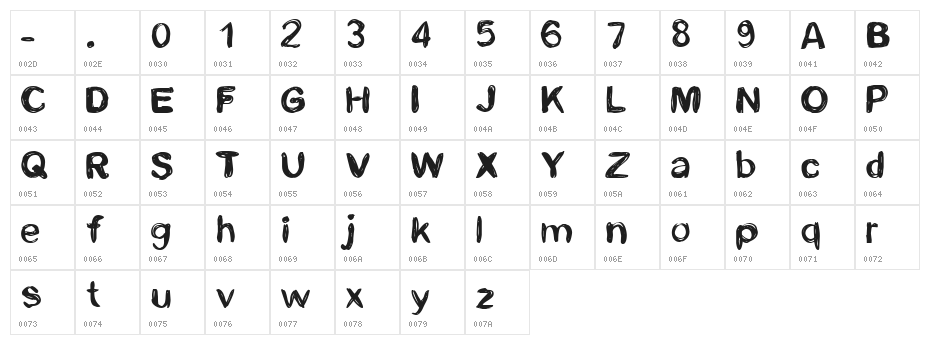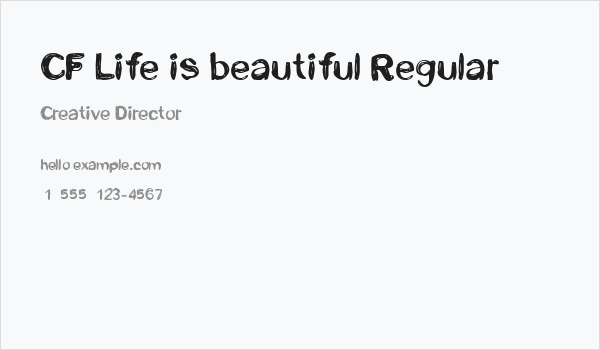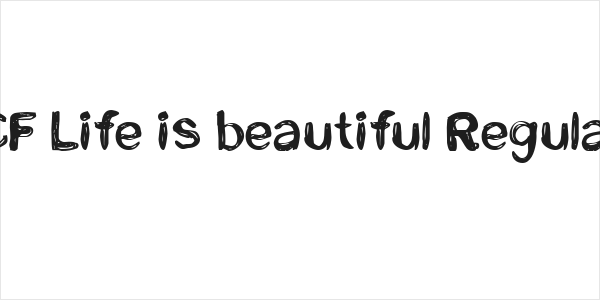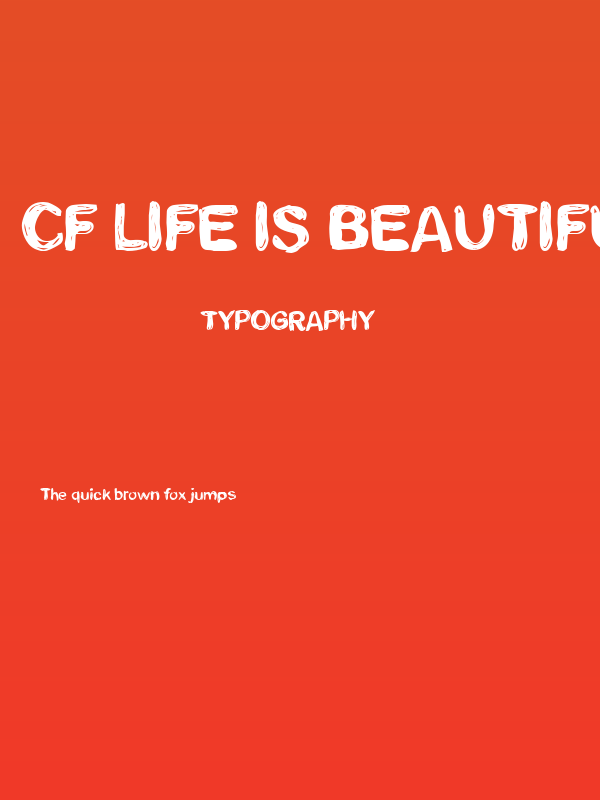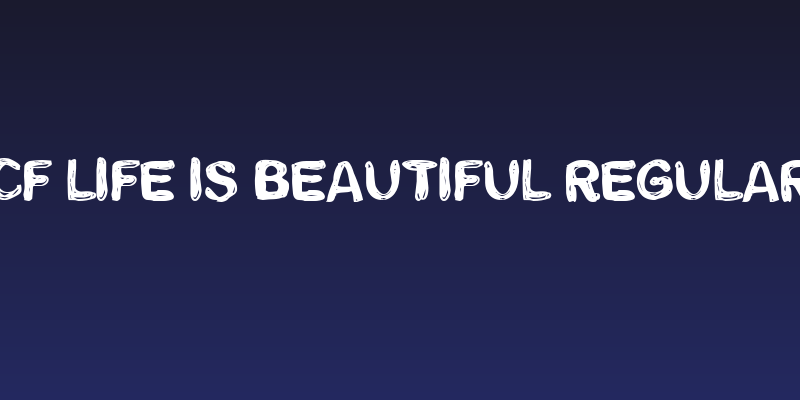
CF Life is beautiful Regular Font
CF Life is beautiful Regular Description
This font features a playful and artistic style, characterized by its hand-drawn appearance and bold, expressive strokes. The letters have a whimsical, slightly irregular form, giving them a lively and dynamic feel. The uppercase and lowercase letters maintain a consistent style, with rounded edges and a slightly uneven baseline that enhances the casual, informal look. The numbers and special characters follow the same design principles, ensuring a cohesive appearance across all glyphs. This font is perfect for projects that require a touch of creativity and personality, such as children's books, greeting cards, or playful branding materials.
| Proposed Projects | Ideal for children's books, greeting cards, playful branding, and creative projects. |